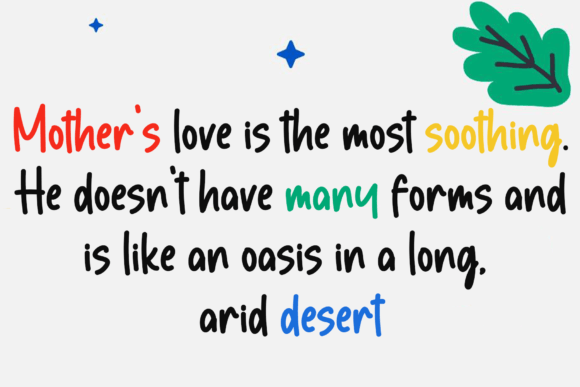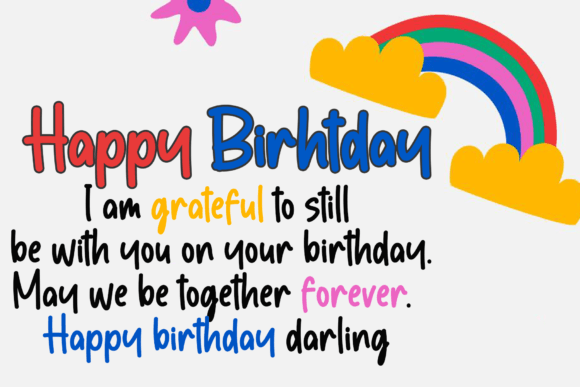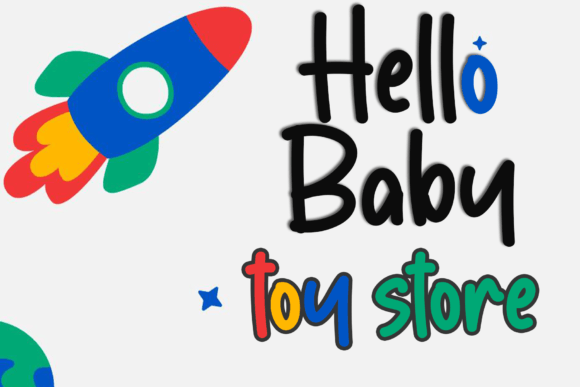
Only Kids Font: A Playful & Cute Display Font for Children’s Branding
About the Only Kids Font
Presenting Only Kids Font, a unique and stylish typeface that will make your work stand out. Introducing Only Kids Font, a playful and whimsical display typeface that captures the essence of childhood joy and imagination. With its vibrant and friendly letterforms, this font adds a delightful touch to your designs.
Perfect for children’s books, posters, and playful branding projects, Only Kids Font brings a sense of fun and innocence, creating a visual experience that resonates with the young and the young at heart.
Its friendly, rounded forms make it ideal for children’s products, playful branding, and eye-catching headlines. However, its whimsical nature makes it less suitable for body text or UI elements where readability is paramount. Avoid using it for lengthy paragraphs or small sizes.
Only Kids Font pairs well with clean sans-serif fonts like Open Sans for a balanced contrast, or a more structured serif like Merriweather for a touch of classic elegance. Consider pairing it with a playful script font for added whimsy, but ensure legibility remains a priority.
The font exudes a cheerful, approachable personality, making it perfect for brands targeting a younger audience or projects needing a touch of lightheartedness. Avoid using it for projects requiring a sophisticated or formal tone.
Only Kids Font Usage Examples
Only Kids Font Example